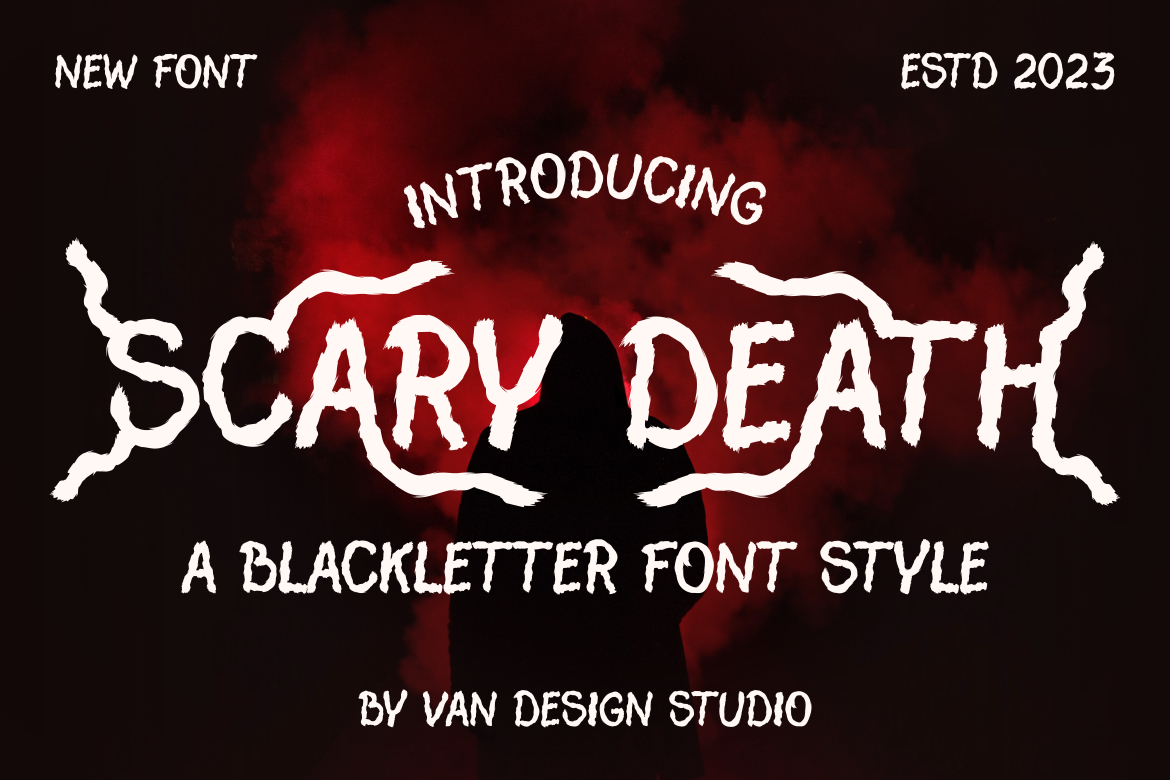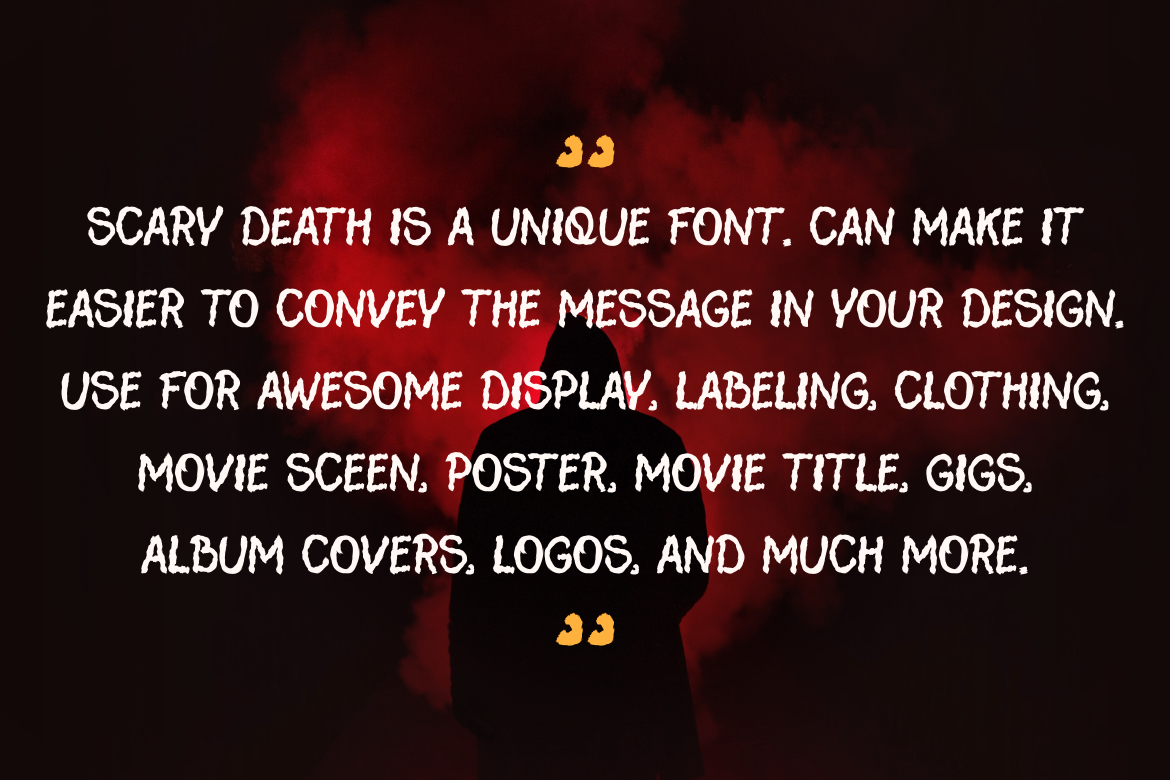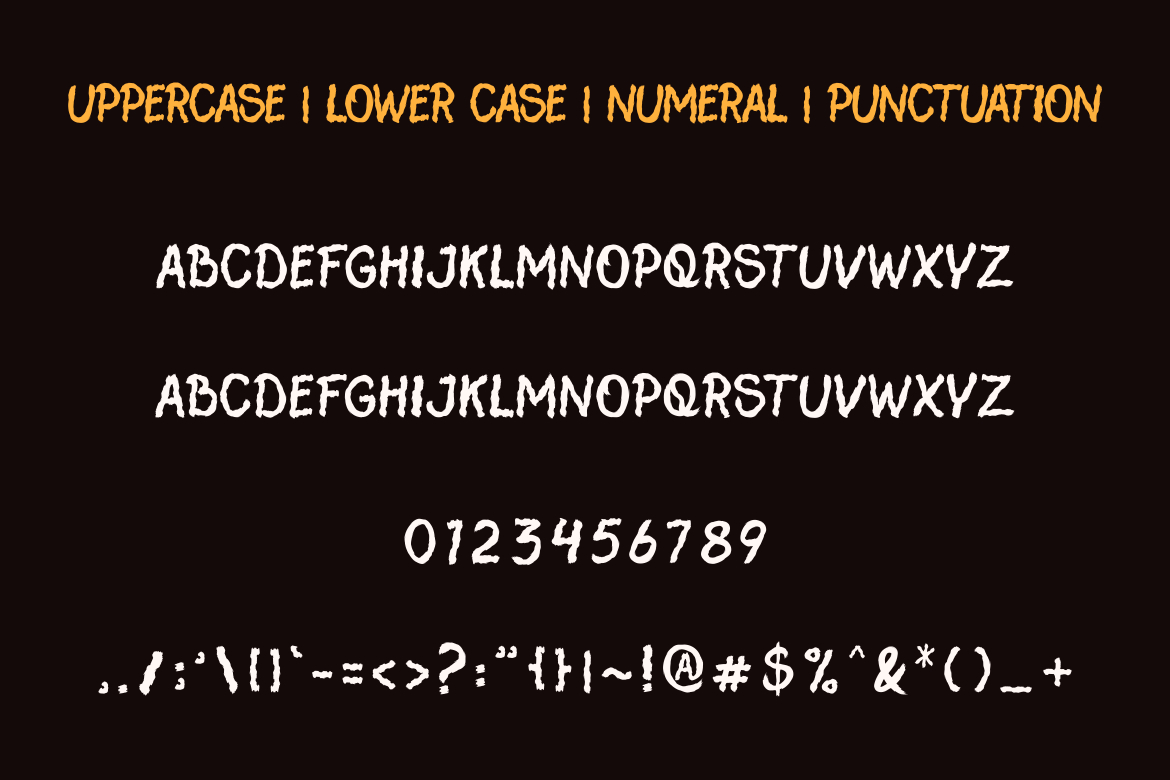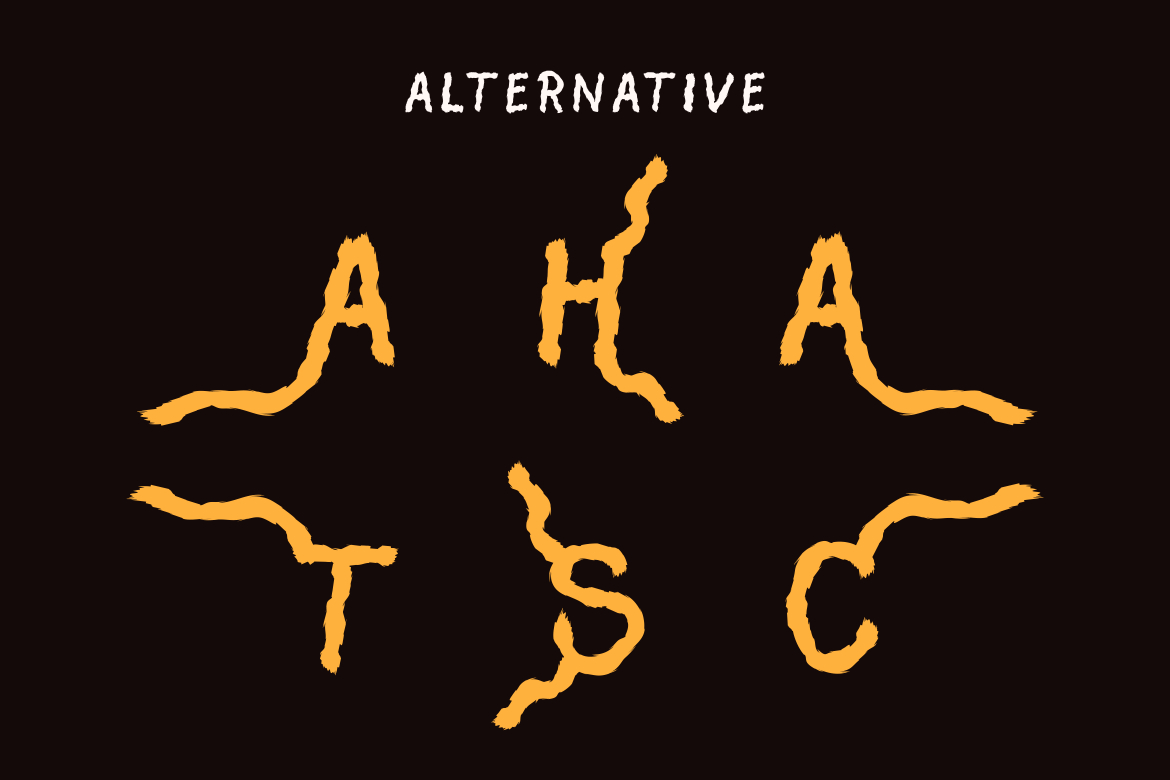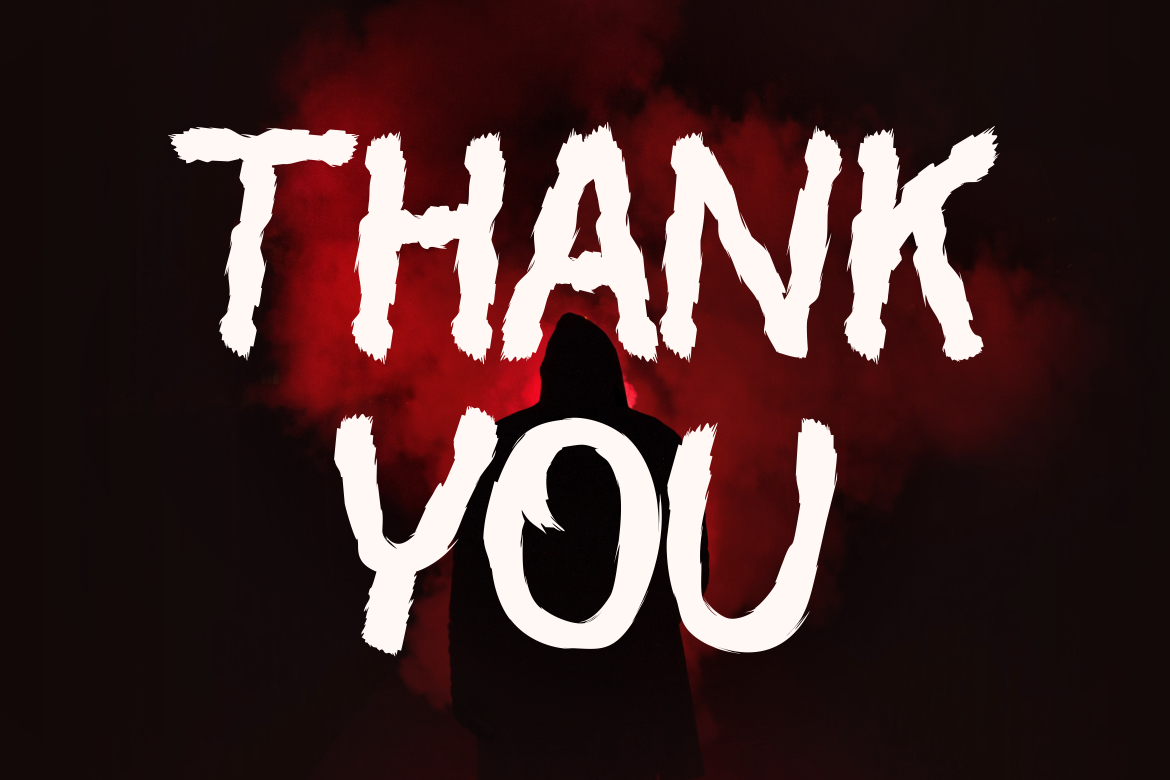
Scary Death Font
About Scary Death Font
Scary Death is a bold and thick lettered blackletter font. Add it confidently to your projects, and you will love the results.